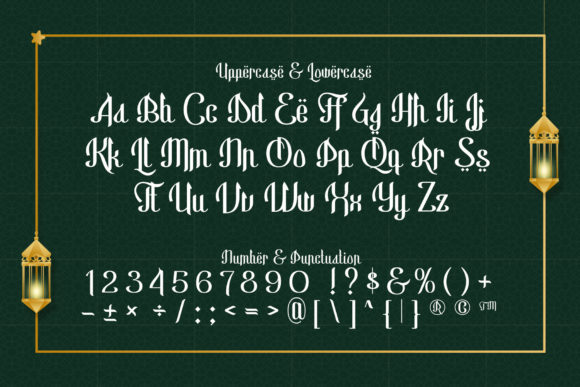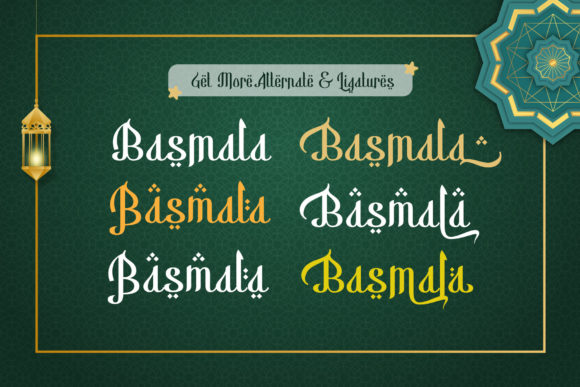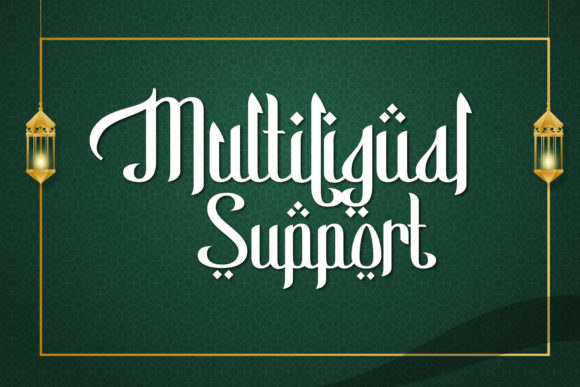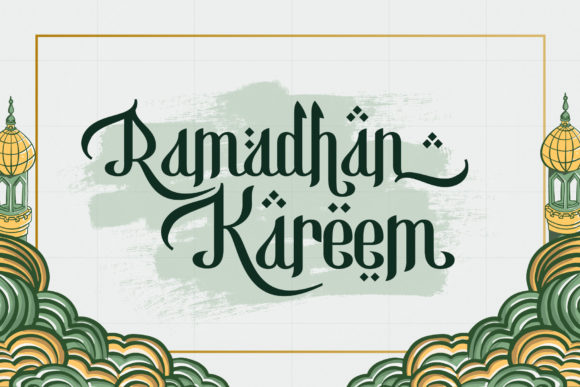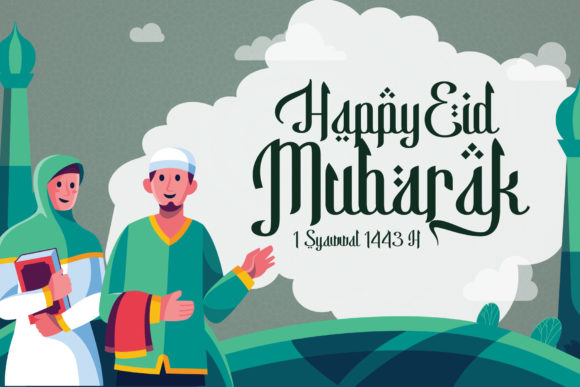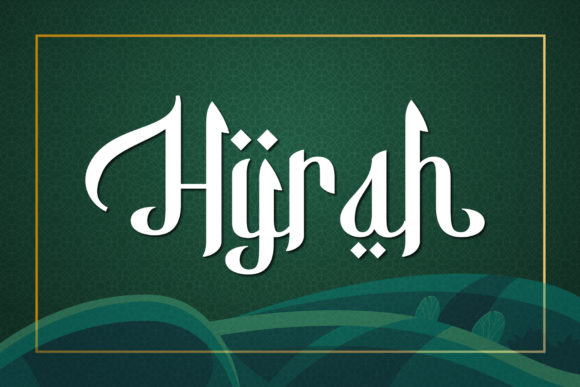
Unlocking the Spirit of Ramadan with the Basmala Font
As the sun sets on the eve of Ramadan, designers around the world are getting ready to create stunning visuals that capture the essence of this sacred month. The search for the perfect font to infuse Islamic style and flair into their designs is a common challenge many face. This is where the Basmala Font comes in – a beautifully crafted, Arabic-styled display typeface designed specifically for the Islamic community.
The Basmala Font is not just a pretty face; it’s a valuable tool for designers looking to add an authentic touch to their projects. With its unique blend of traditional Arabic calligraphy and modern design elements, this font is perfect for branding, product packaging, and any other design project that requires an Islamic flair. Whether you’re creating quotes, flyers, posters, or logotypes, the Basmala Font is sure to elevate your design to the next level.
Basmala Font Key Features
- Font Family: Basmala is a unique, modern Arabic font designed specifically for digital use. It supports various languages including Arabic and Latin scripts.
- Unique Characteristics: Basmala font features a distinctive, elegant design with a focus on readability and aesthetic appeal, making it an excellent choice for various design projects.
Basmala Font Review
I recently had the chance to work with the Basmala font, and I must say it’s an interesting choice. Here are my honest thoughts.
- The unique script style is a great addition to any project. It adds a touch of elegance and sophistication.
- The font is highly legible, making it perfect for long blocks of text or body content.
- It’s a great choice for designers looking to add a touch of Arabic or Islamic flair to their projects.
- The font may not be the best choice for projects that require a high level of customization or flexibility.
- The script style may not be suitable for all audiences, particularly those who are not familiar with Arabic script.
- The font may not be as versatile as some other options, particularly when it comes to pairing with other fonts.
The Basmala font is a solid choice for designers looking to add a unique touch to their projects. While it may have some limitations, it’s a great option for those looking to add a touch of Arabic or Islamic flair. With the right use case, this font can really shine and add a level of sophistication to any project.
Tips for Getting the Most Out of Basmala Font
Use the Basmala font to create visually appealing and harmonious designs.
Combine the font with other Arabic or Islamic-inspired elements to create a cohesive look.
Experiment with different font sizes and colors to add depth and interest to your design.
Use the Basmala font in:
Islamic-inspired artwork and designs.
Muslim-themed events and celebrations.
Arabic language documents and publications.